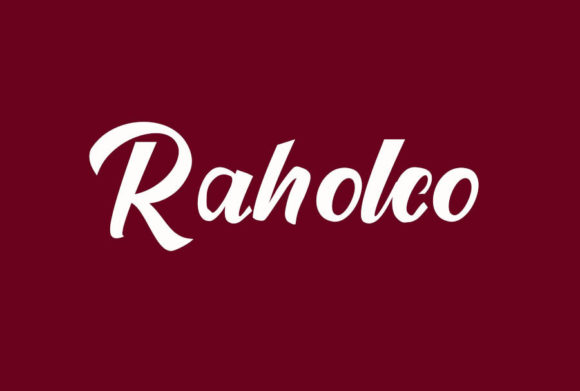
Raholco Font
About Raholco Font
Raholco is a gorgeous, cursive and bold script font. It is PUA encoded which means you can access all of the beautiful glyphs and swashes with ease!
This font reads as strong, confident, and dynamic and can add tons of nostalgic character to your designs.